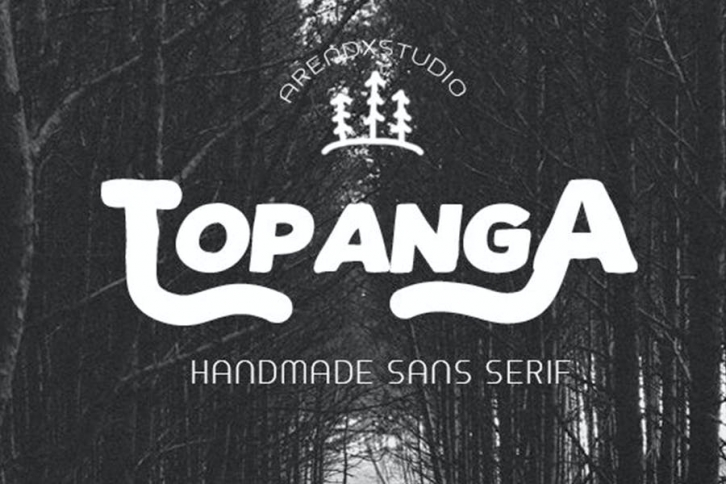
Topanga - Handmade Sans Serif is a font with distinctive handwritten characters perfect for branding projects, logos, wedding designs, media posts, advertisements, product packaging, product designs, labels, photography, watermarks, invitations, stationery, and any project who need handwritten dishes.
Features : • Character Set A-Z • Numerals & Punctuations (OpenType Standard) • Accents (Multilingual characters) • Ligature • Swash